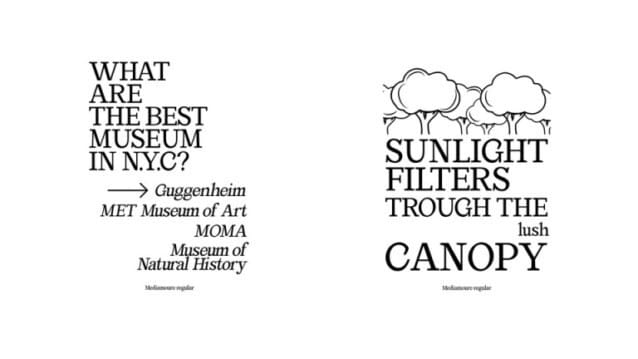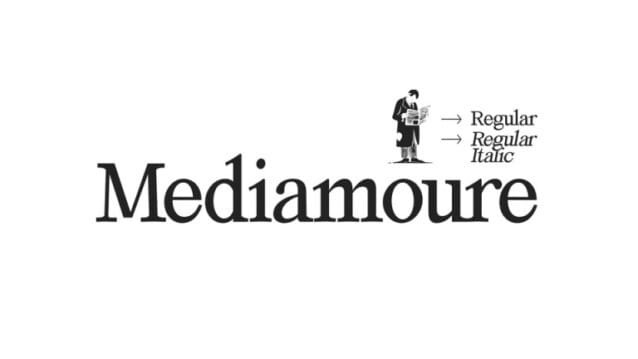
Mediamoure Font
Mediamoure Font is a chic & elegant modern serif with beautiful contrast. Inspired by the titles of old newspapers and inaccuracies of typeface printing, this typeface brings a unique trait to your projects!
Mediamoure font features an understated and dignified design, reminiscent of the graceful lettering that adorned the mastheads of historic newspapers. Its meticulously crafted serifs and carefully balanced proportions exude a sense of sophistication and authority, making it an ideal choice for projects that require a touch of vintage charm.